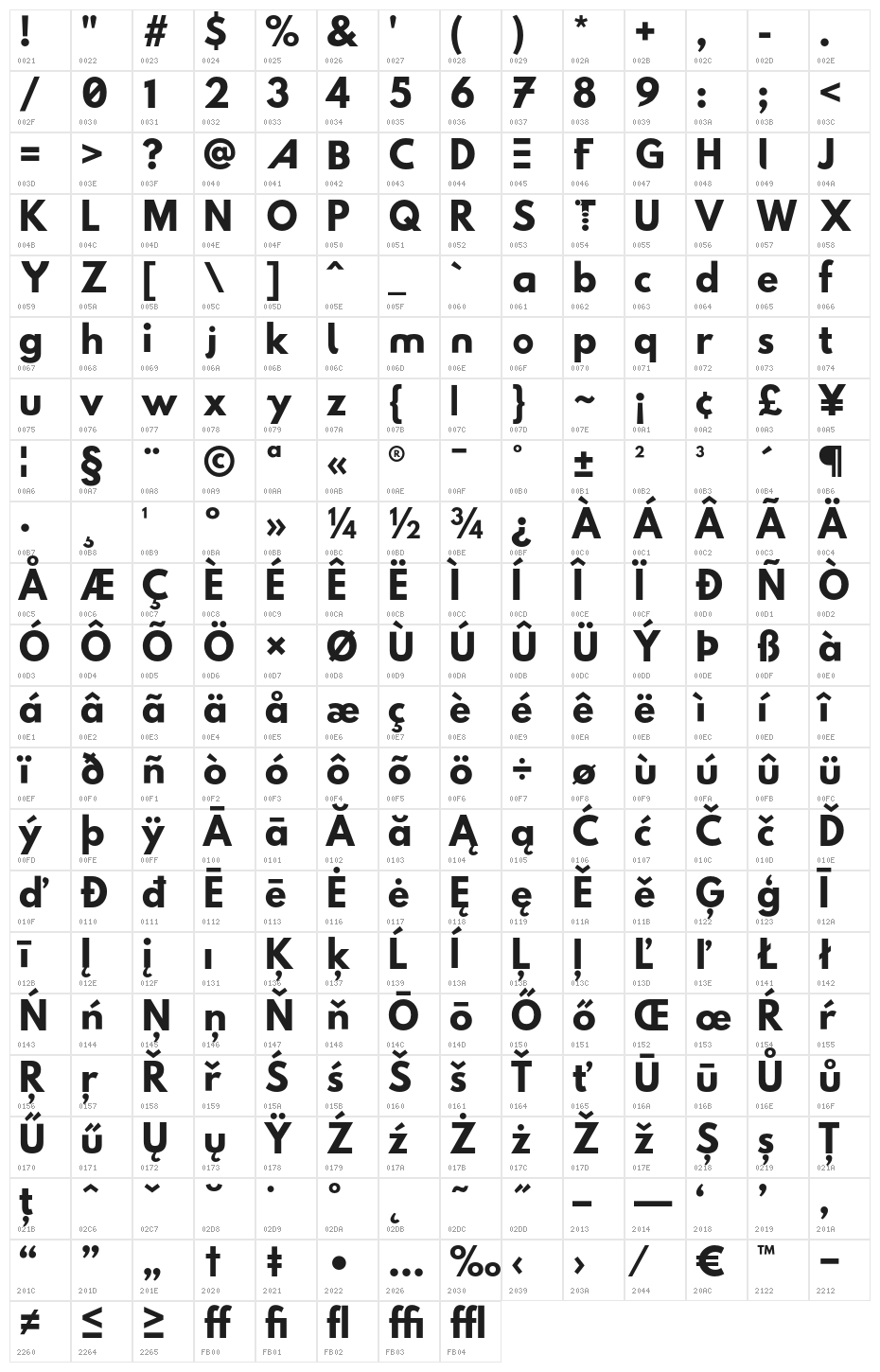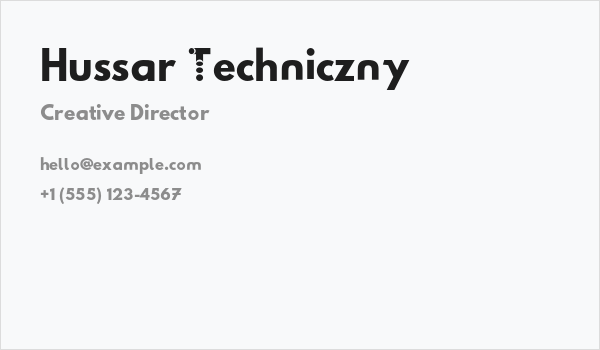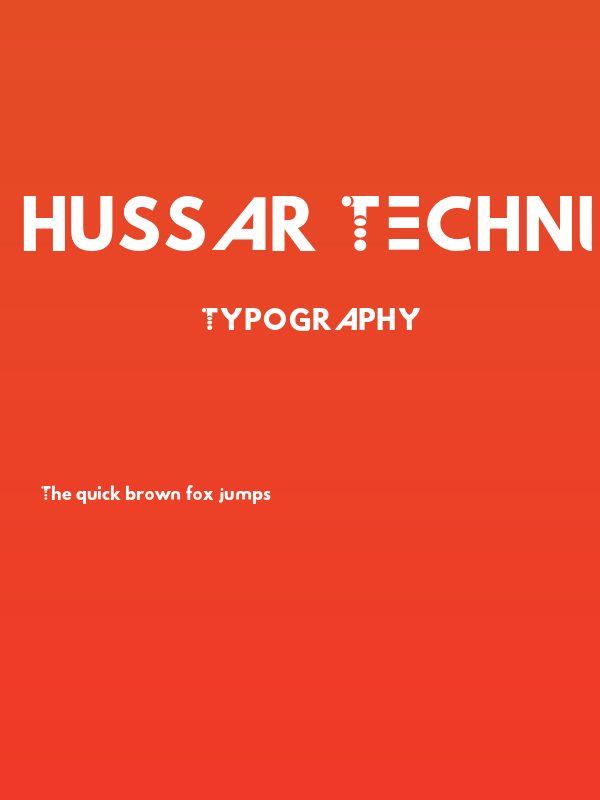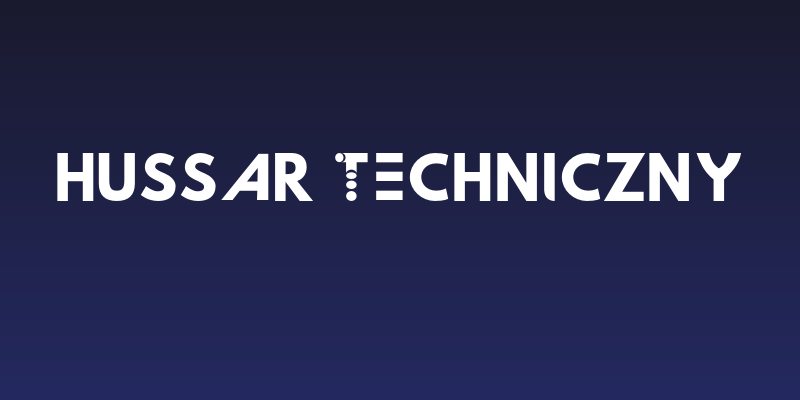
Hussar Techniczny Font
Hussar Techniczny Description
This font features a bold and modern design with a strong geometric influence. The uppercase letters are characterized by their clean lines and sharp angles, creating a sense of precision and strength. The lowercase letters maintain a consistent style, with rounded edges that add a touch of softness to the overall appearance. The numerals are clear and easily readable, making them suitable for various applications. The special characters are distinct and well-integrated into the font's design, ensuring versatility in use. The font's overall aesthetic is contemporary, making it ideal for projects that require a modern and professional look.